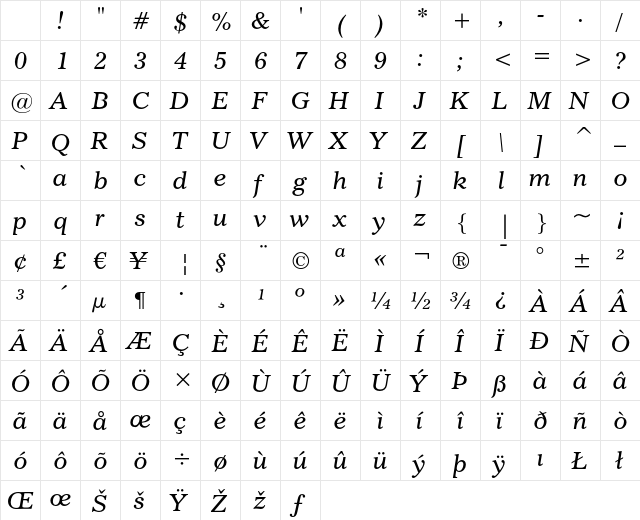
Imperial is a composed and adaptable typeface that performs quietly and consistently across a wide range of design contexts. The slanted form adds forward momentum and visual energy.
Pro Tip: Use Imperial for emphasis, pull quotes, and subheadings where its slanted energy can add rhythm to the layout.